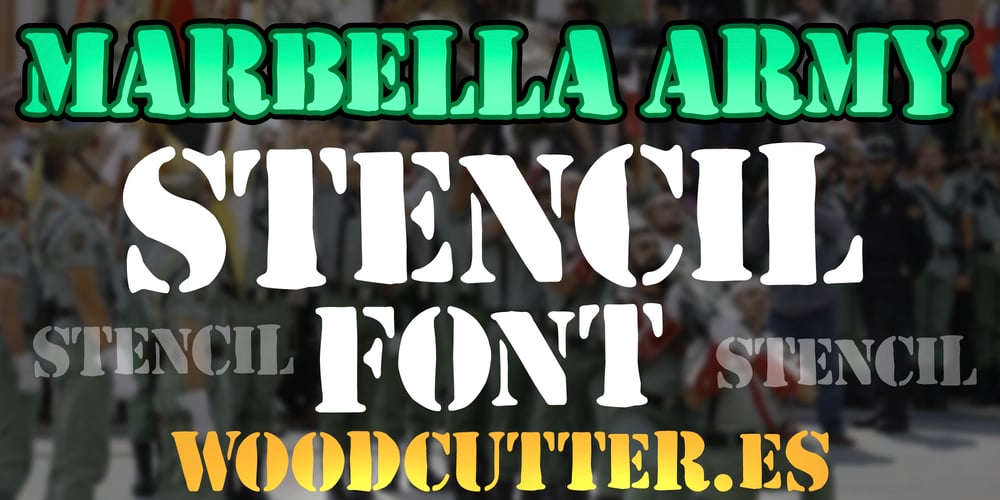
Marbella Army Font Family was designed by Jordi Manero and published by Woodcutter. Marbella Army contains 1 styles and family package options. “Marbella Army” is a military-style typeface that captures the robust and strong essence of classic stencils. Featuring uppercase letters, each character displays subtle imperfections in position and size, providing an authentic sense of use and wear. Ideal for designs seeking to convey a rugged and powerful aesthetic, “Marbella Army” is perfect for posters, logos, and graphic projects that require a touch of authority and rusticity. Its slightly imperfect appearance adds character and authenticity, making any message stand out with strength and personality.